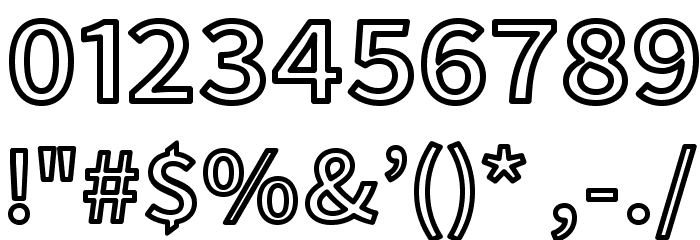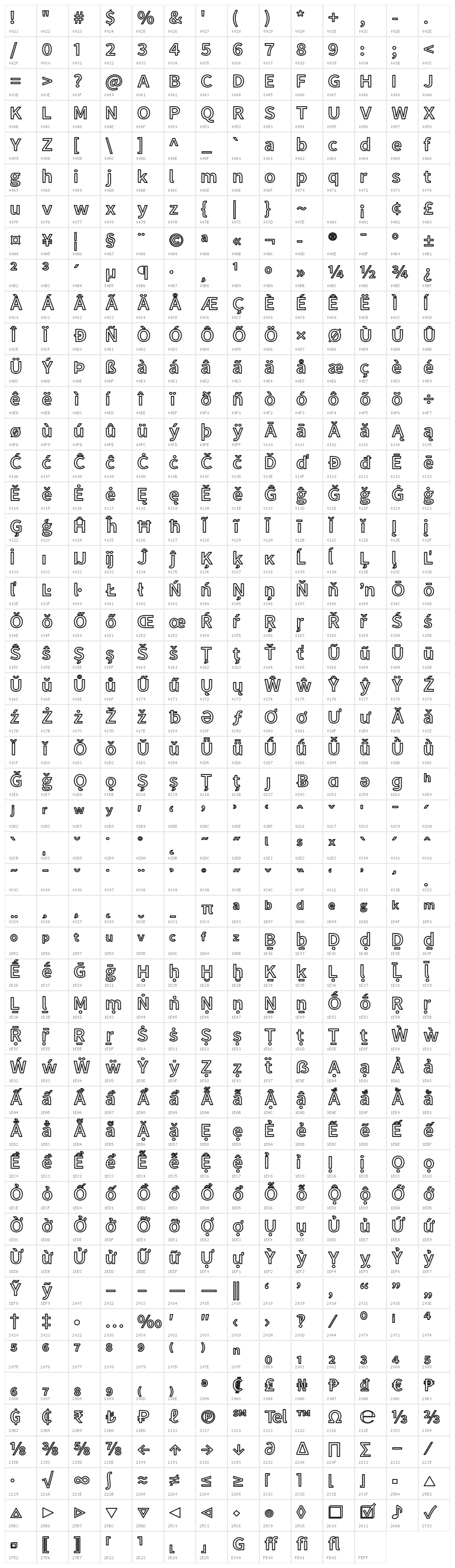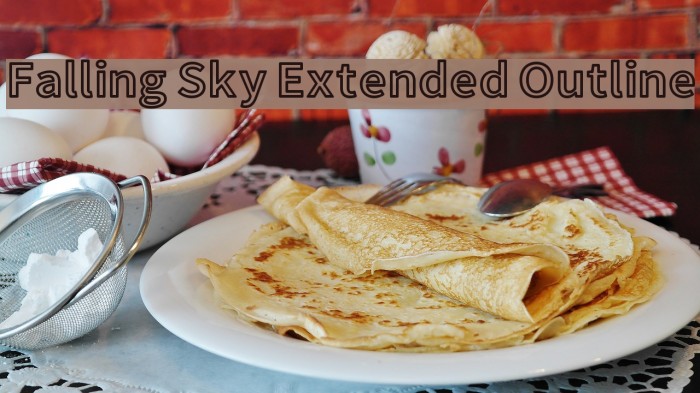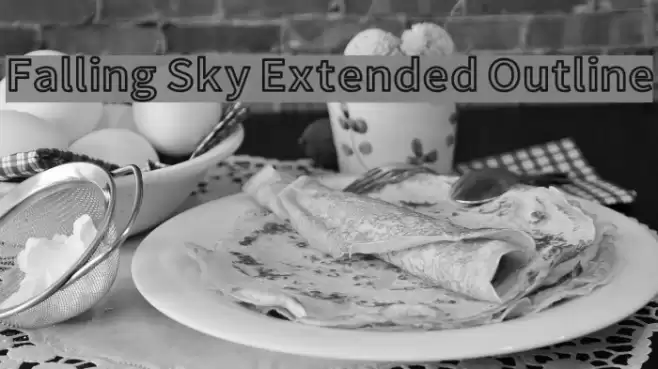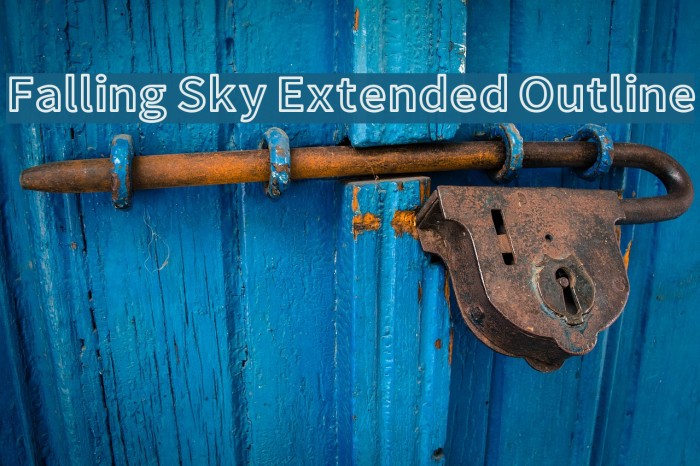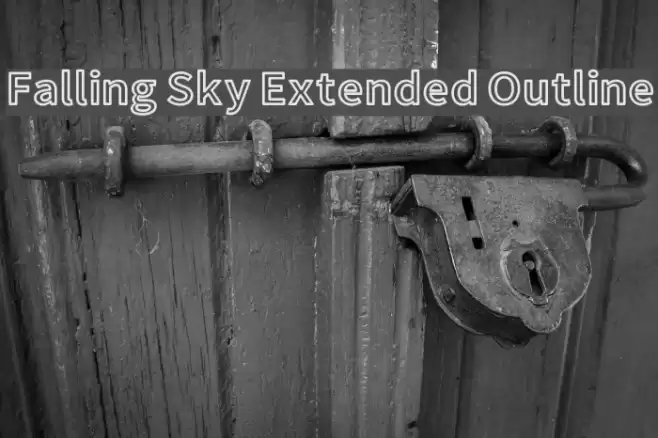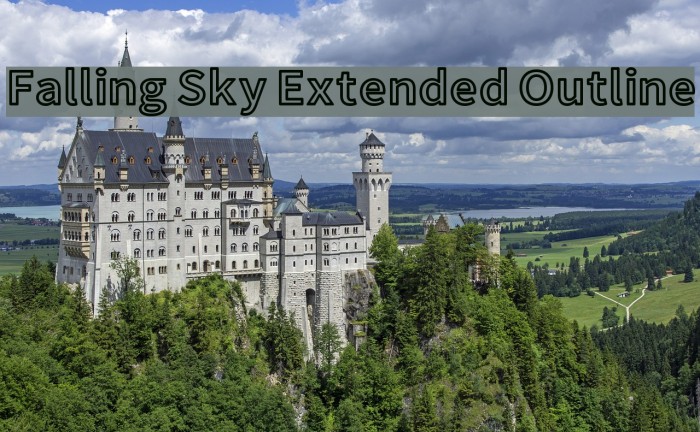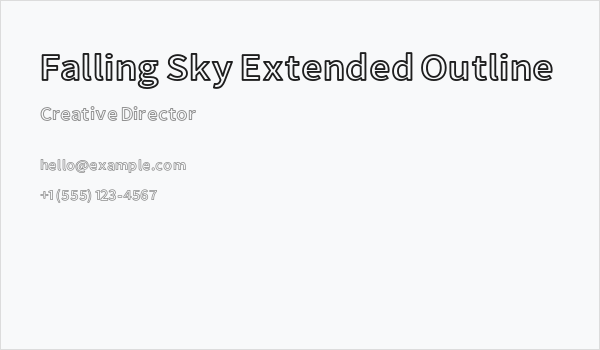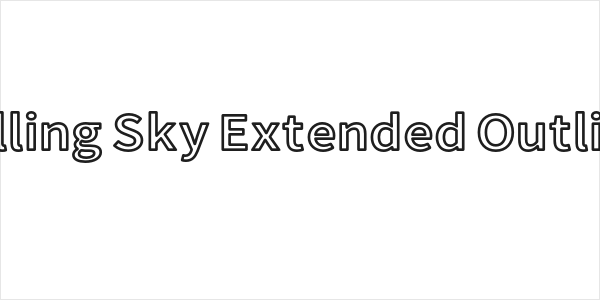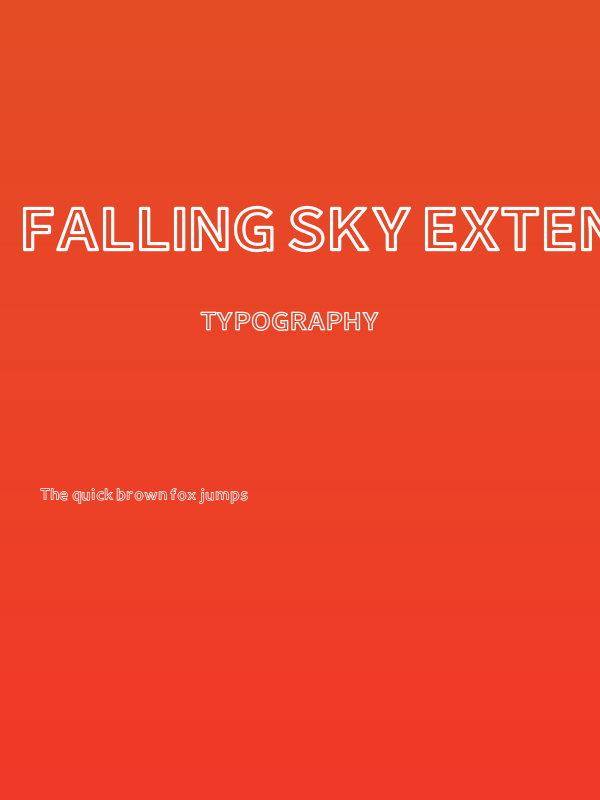
Falling Sky Extended Outline Font
Falling Sky Extended Outline Description
This font features a bold, outlined style that gives it a striking and modern appearance. The characters are evenly spaced with a consistent outline that adds depth and dimension. The uppercase and lowercase letters maintain a uniform width, creating a cohesive look across all text. The numerals and special characters are designed with the same attention to detail, ensuring readability and aesthetic appeal. This font's extended outline style makes it ideal for creating eye-catching headlines and titles.